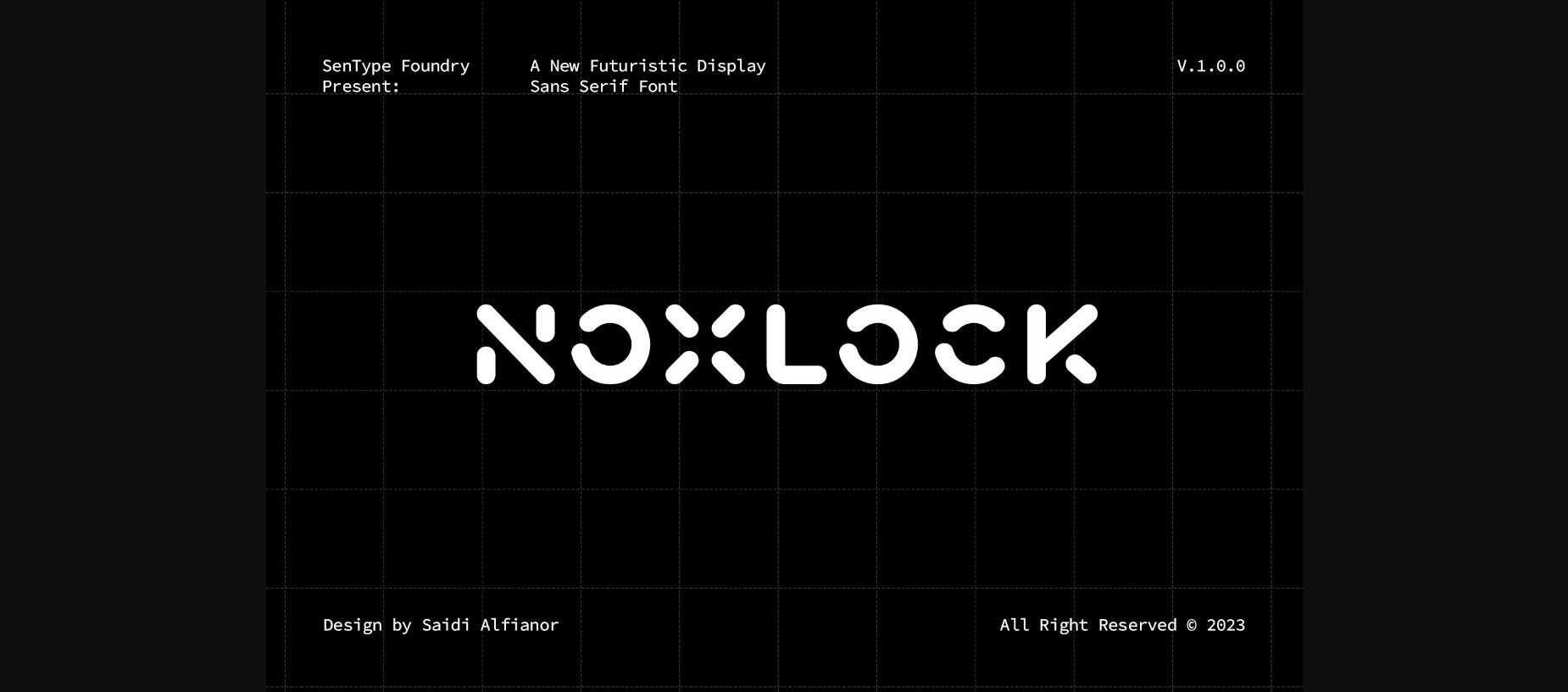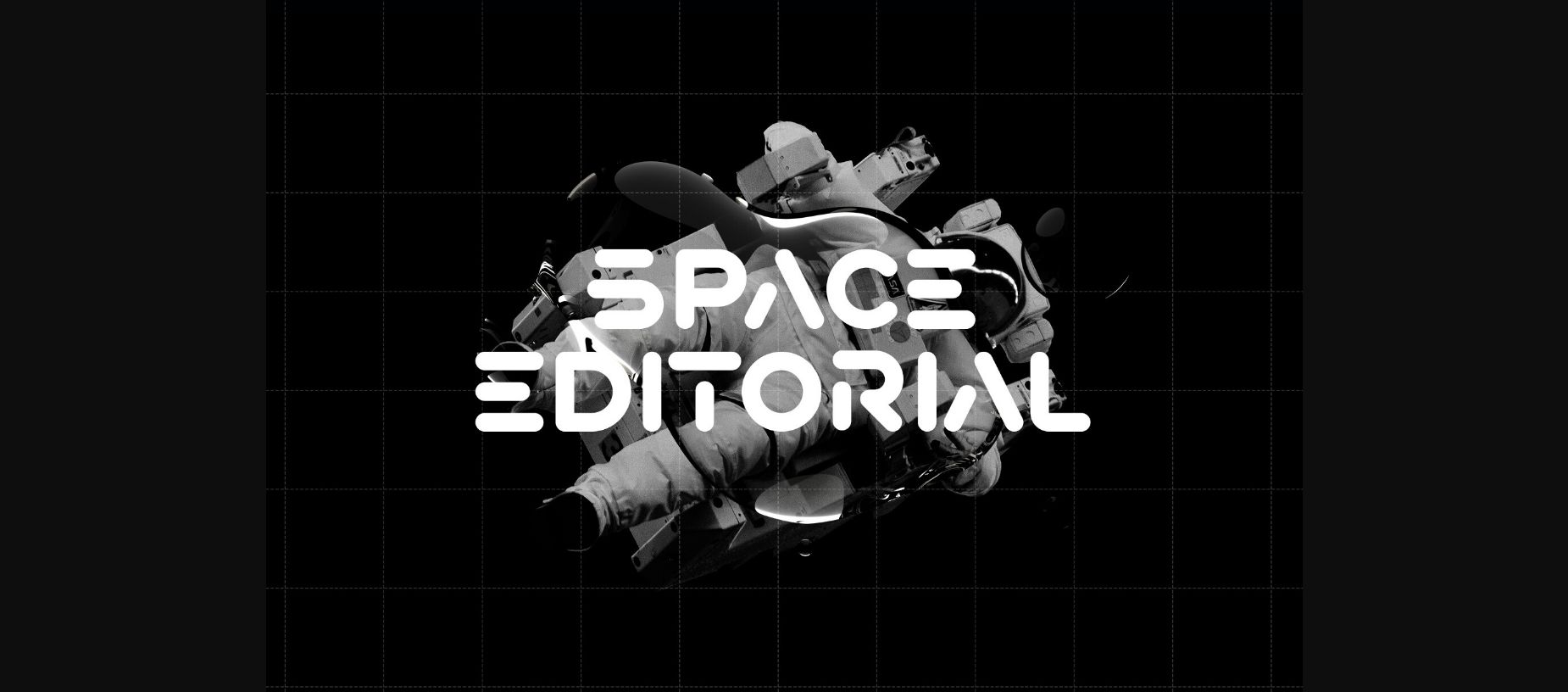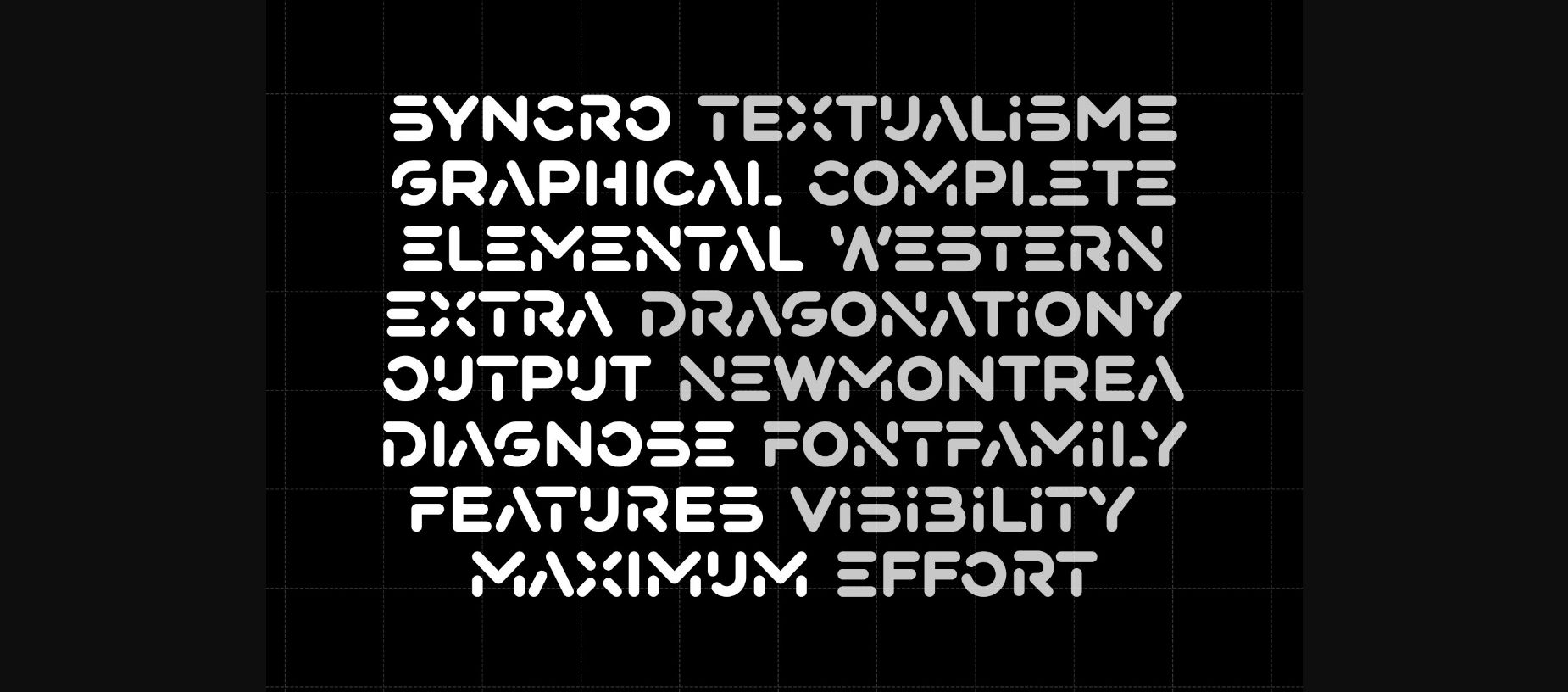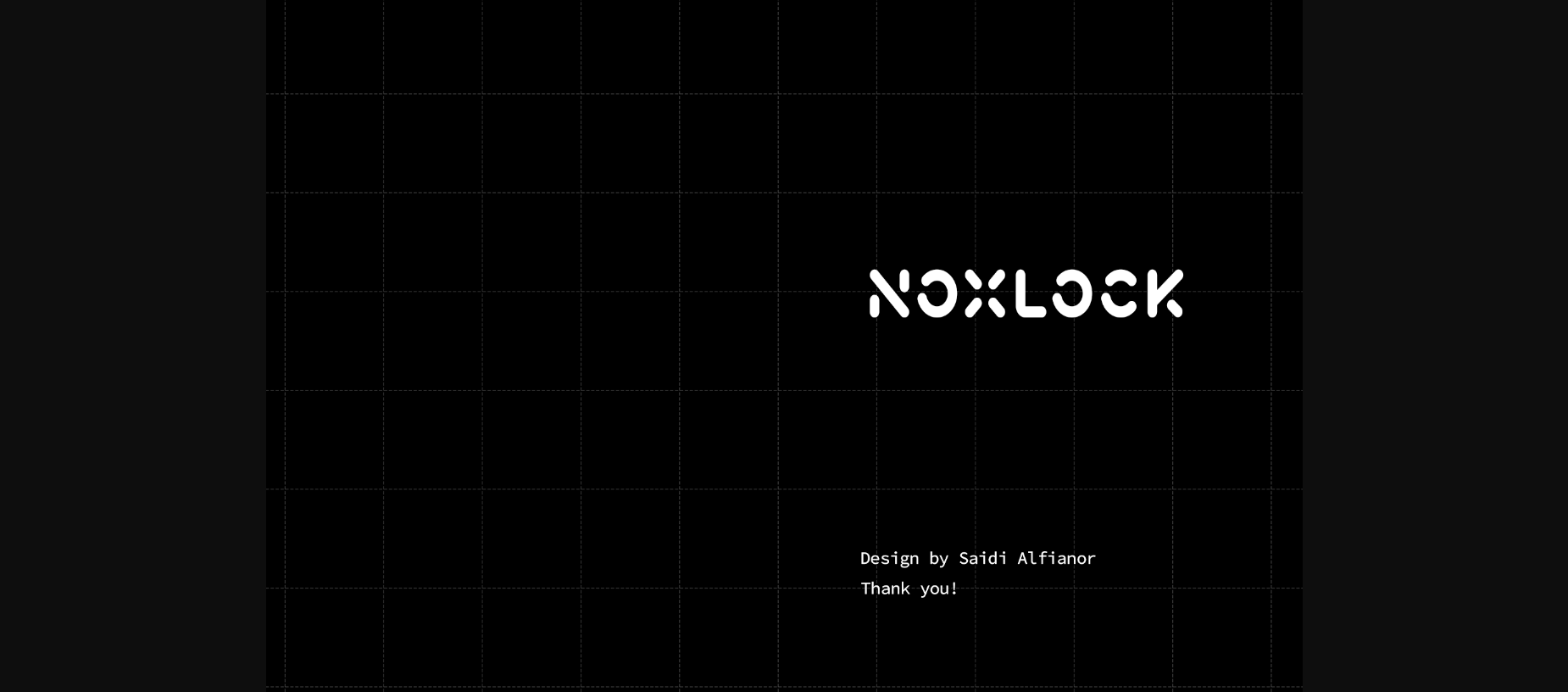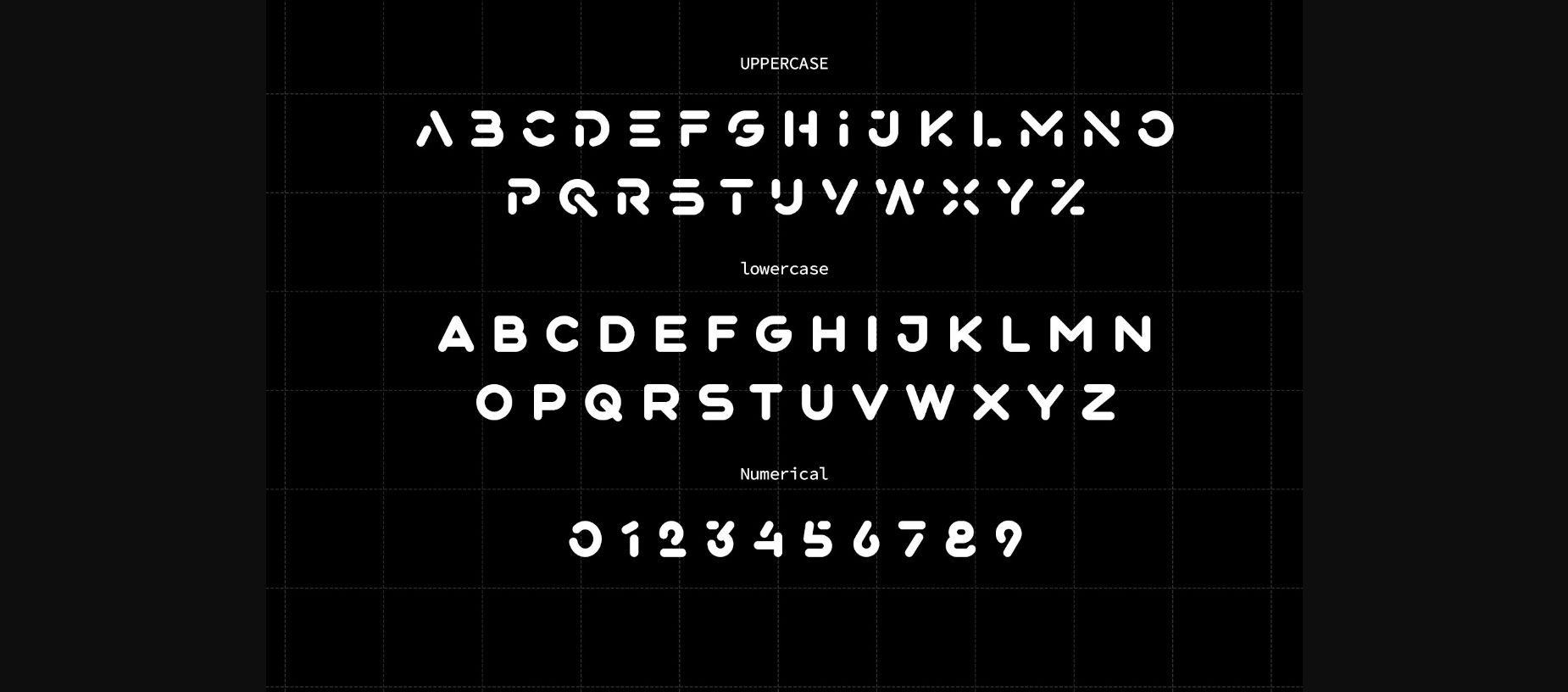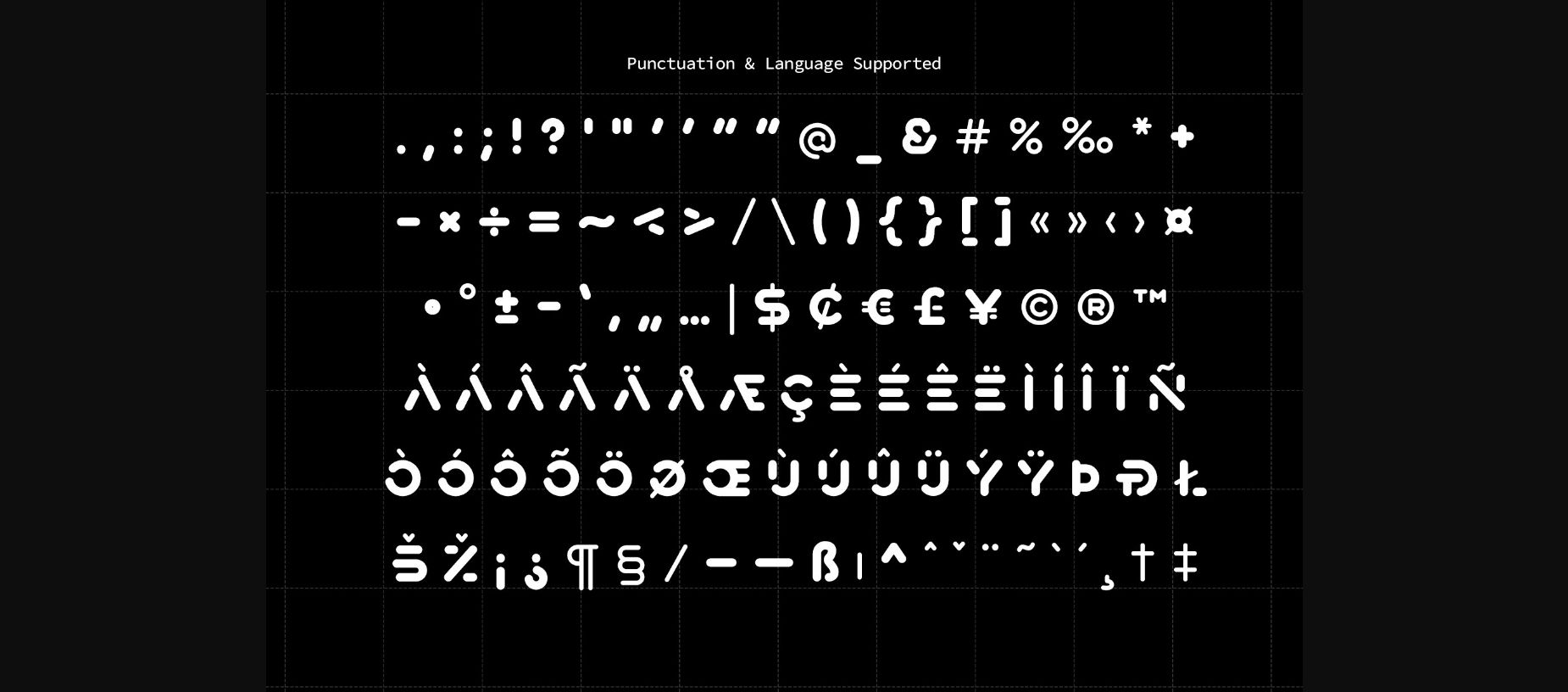
Noxlock Font
About Noxlock Font
Noxlock is a new futuristic rounded sans-serif display font focusing on incomplete or cutting letterform shapes. Noxlock is a techno, sporty, and modern type that suit your logo design project and is also best for H1 text titles for poster, websites, and animation